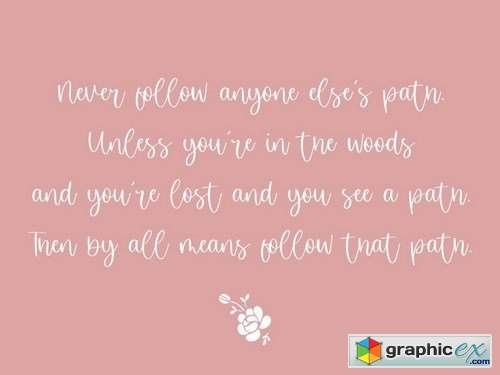
Misty Cloud YH - Elegant Script Font
Proudly Present, Misty Cloud Font.
Misty Cloud is perfect for product packaging, branding project, magazine, social media, wedding, or just used to express words above the background.